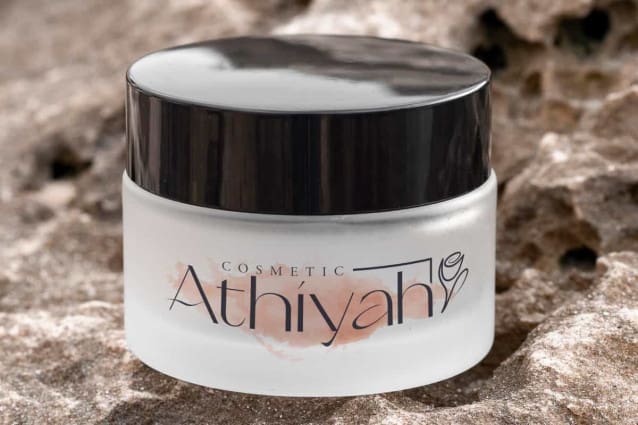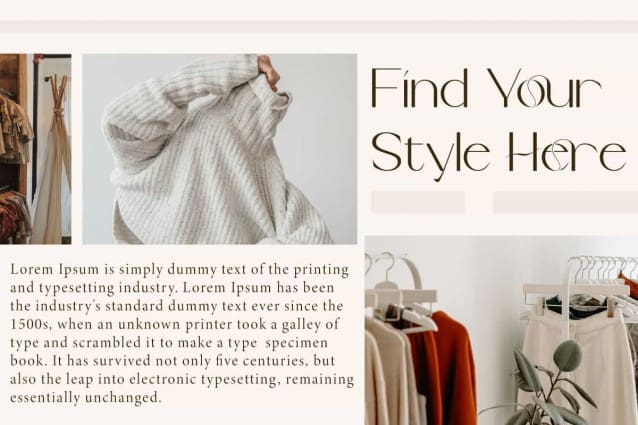
Reconvile Font
Reconvile Font is a modern minimalist sans serif display font. This font has a clean look so it can exude a luxurious feel. It would be perfect for any projects, such as advertising, blog, brand image, gift box, greeting cards, invitation, label, layout design, quotes, signage, stationery, template designing purposes, website, and more.
Reconvile Font includes full set of Uppercase and Lowercase Basic Characters, Numerals, Punctuation, and Symbol. This font also has Ligature characters that will be perfect for accessories and jewelry, beauty product, clothing brand, event or wedding organizer, fashion, florist, furniture, real estate, spa salon, etc.